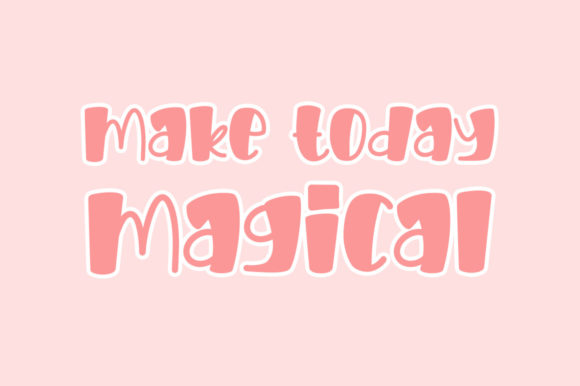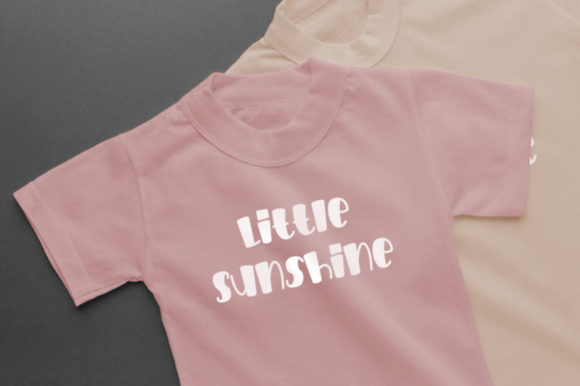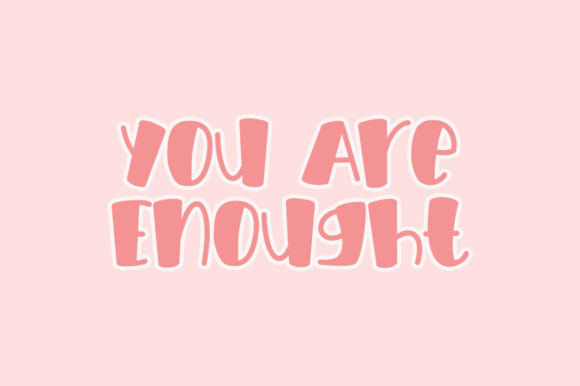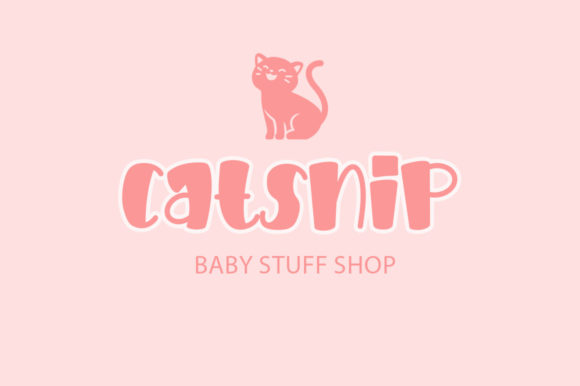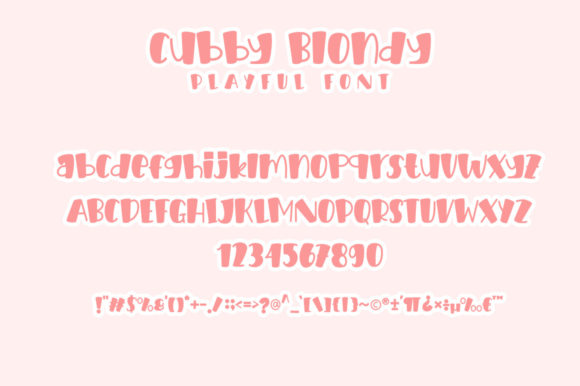
Cubby Blondy Font: Elevate Your Designs with a Cool, Trendy, and Bold Display Font
In the world of typography, fonts play a crucial role in bringing creative ideas to life. For designers, crafters, and DIY enthusiasts, finding the perfect font can be a daunting task. However, if you’re looking for a cool, trendy, and bold display font that can elevate your designs, look no further than Cubby Blondy. This stunning font is perfect for Instagram enthusiasts, DIY project makers, and anyone seeking to add a touch of artistry to their work.
What is Cubby Blondy Font?
Cubby Blondy is a modern, bold, and eye-catching display font that is sure to make a statement. Its unique blend of trendy and classic elements makes it an excellent choice for a wide range of design projects. Whether you’re creating social media graphics, crafting DIY projects, or designing promotional materials, Cubby Blondy is the perfect font to add a touch of sophistication and style.
Key Features of Cubby Blondy Font
- Bold and Eye-Catching: Cubby Blondy is a bold and attention-grabbing font that is perfect for headlines, titles, and promotional materials.
- Trendy and Modern: With its unique and modern design, Cubby Blondy is ideal for designers and crafters who want to stay on top of the latest trends.
- Versatile: This font is perfect for a wide range of design projects, including Instagram graphics, DIY projects, and promotional materials.
- Elegant and Sophisticated: Cubby Blondy adds a touch of elegance and sophistication to any design project, making it perfect for high-end brands and luxury products.
Uses of Cubby Blondy Font
Cubby Blondy is a versatile font that can be used for a wide range of design projects. Here are some of the most popular uses of this stunning font:
- Instagram Graphics: Use Cubby Blondy to create stunning Instagram graphics that are sure to grab attention.
- DIY Projects: Add a touch of elegance and sophistication to your DIY projects with Cubby Blondy.
- Promotional Materials: Use Cubby Blondy for promotional materials such as brochures, flyers, and posters.
- Logos and Branding: Cubby Blondy is perfect for logos and branding projects that require a bold and eye-catching font.
Why Choose Cubby Blondy Font?
With so many fonts available, why choose Cubby Blondy? Here are some reasons why this font stands out from the rest:
- Unique Design: Cubby Blondy has a unique and modern design that sets it apart from other fonts.
- High-Quality: This font is of high quality, making it perfect for professional design projects.
- Easy to Read: Despite its bold design, Cubby Blondy is easy to read, making it perfect for a wide range of design projects.
In conclusion, Cubby Blondy is a cool, trendy, and bold display font that is perfect for designers, crafters, and DIY enthusiasts. Its unique design, versatility, and high-quality make it an excellent choice for a wide range of design projects. Whether you’re looking for fonts for Instagram or calligraphy scripts for DIY projects, Cubby Blondy is sure to turn any creative idea into a true piece of art!